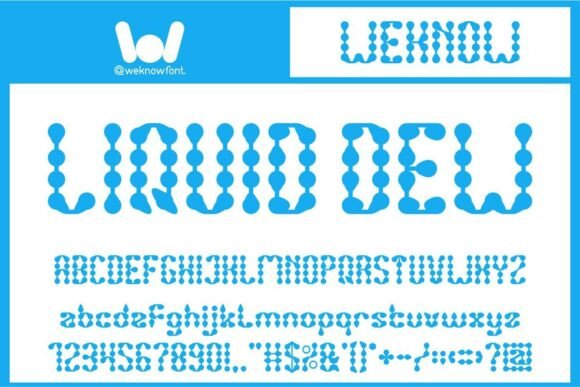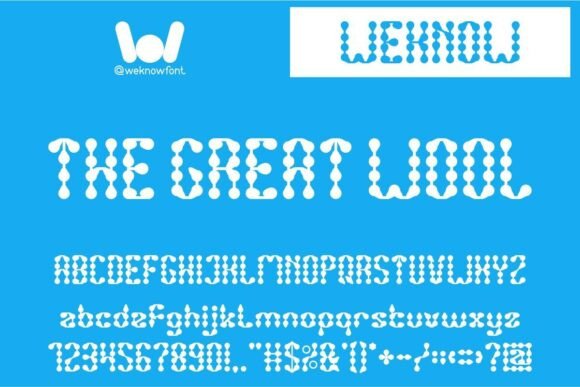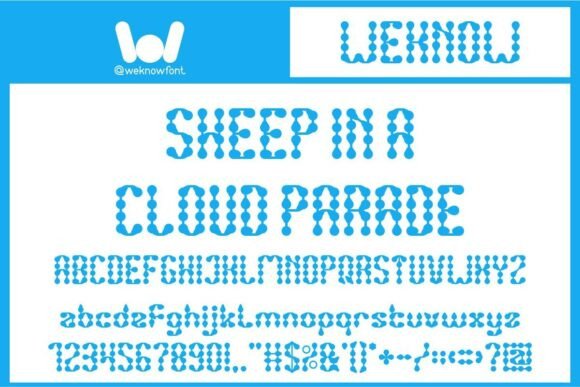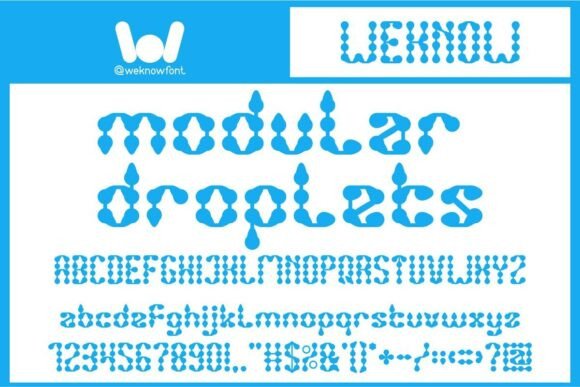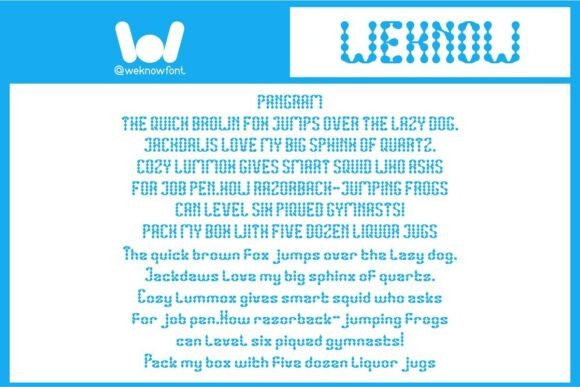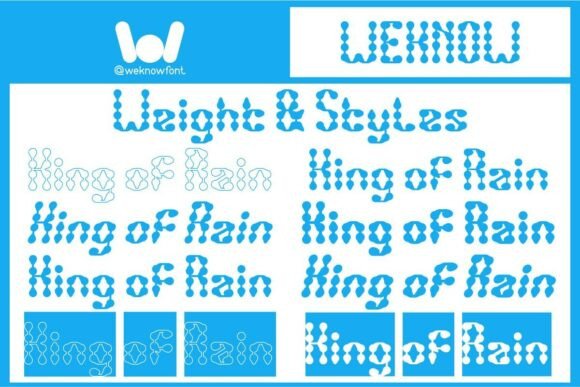
Introduction to King of Rain Font
Unleash your creative spirit with King of Rain—a blend of modern aesthetics and artistic flair, permeating every project with its engaging visual appeal.
Presented as an experimental modular bubble-dot display tech style, this distinctively fancy display font lends itself perfectly for crafting captivating logos, logotypes, and headlines Seamlessly tie together your brand’s identity or further elevate your corporate persona with a font designed to impress.
King of Rain Font offers exceptional quality and versatility, making it a valuable addition to your design toolkit. Whether you’re creating for personal projects or commercial use, King of Rain Font delivers professional results.